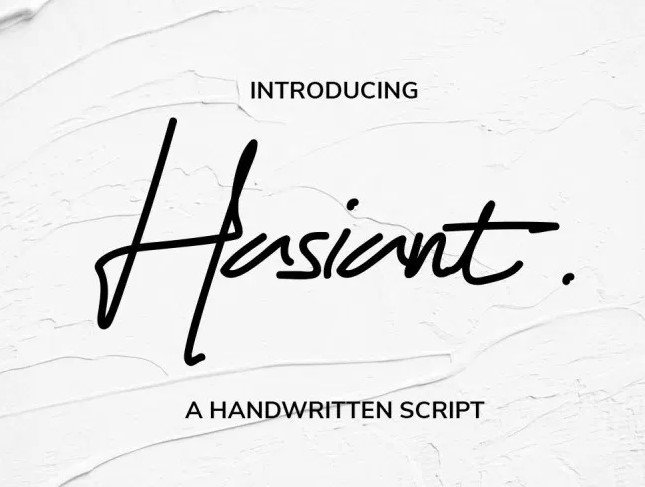
Hello, talented designers If you're aiming to present an outstanding project to your company or client and want to create some captivating and eye-catching designs, you absolutely need to incorporate the fantastic Hasiant Handwritten Font into your current project.
This project will help you to do lots of brilliant things easily. It has a good readability factor which will help you to make some typography designs like book covers, notes covers, theme designs, UI sketches, and lots of other stuff.
Yes You can use the Hasiant Handwritten website on your website and can make your website design more beautiful.
Of course you can use the Hasiant Handwritten for your logo as well as all other graphic designs projects.